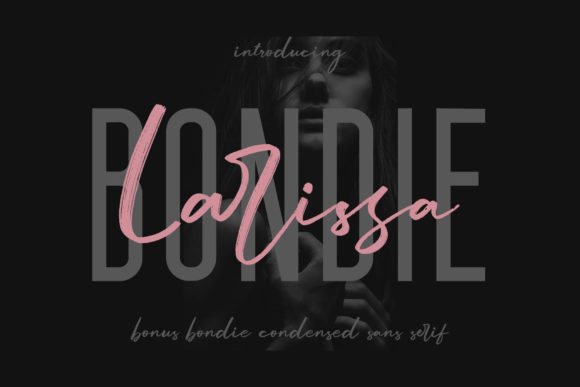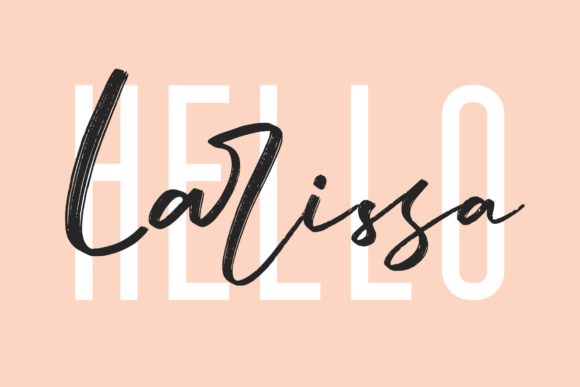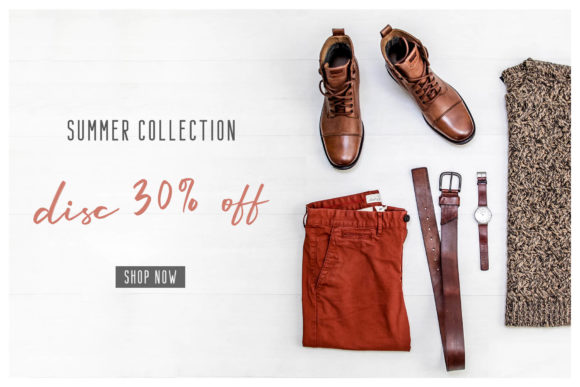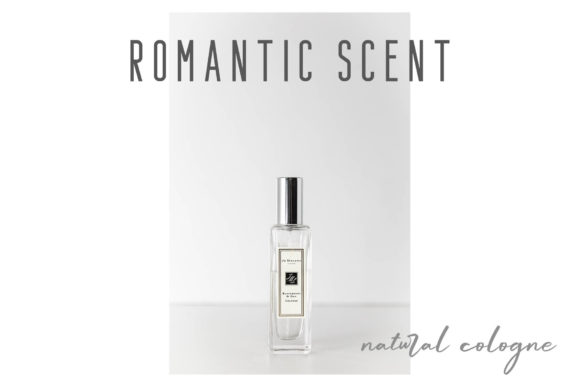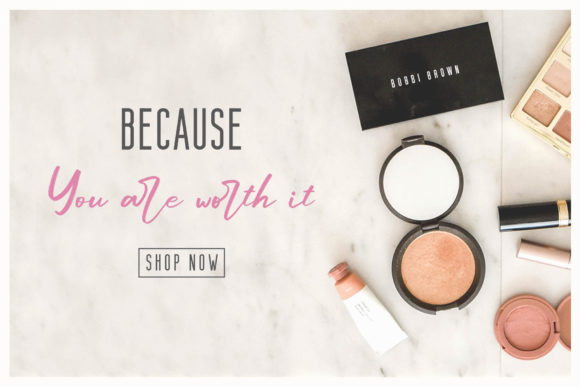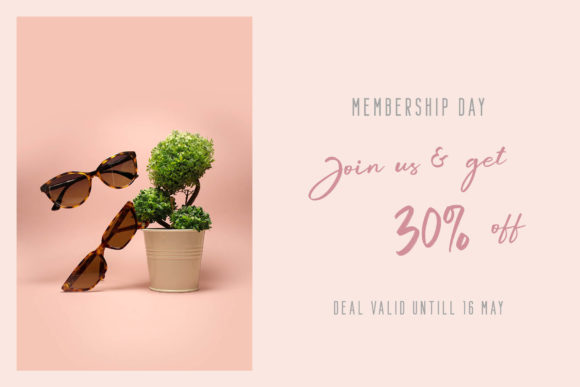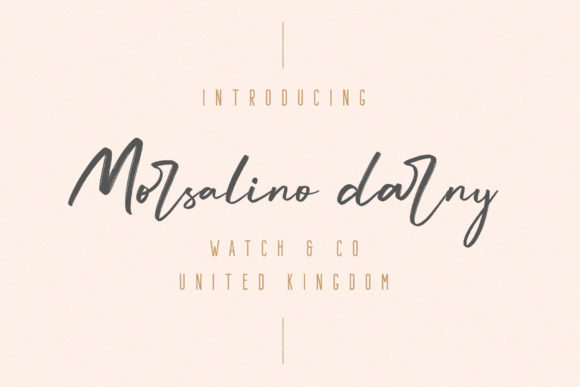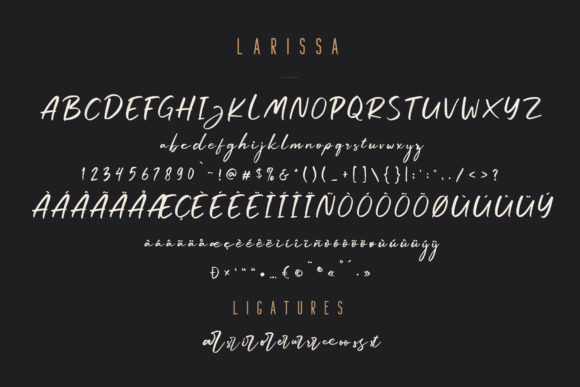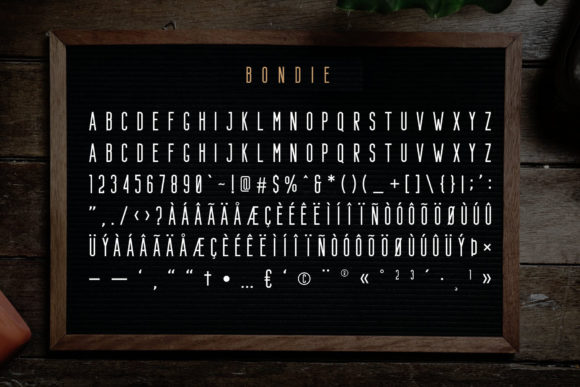
Larissa Duo Font
About Larissa Duo Font
Larissa is a beautiful and bold handwritten font with lots of authentic charm! It will add a unique spin on any design idea.